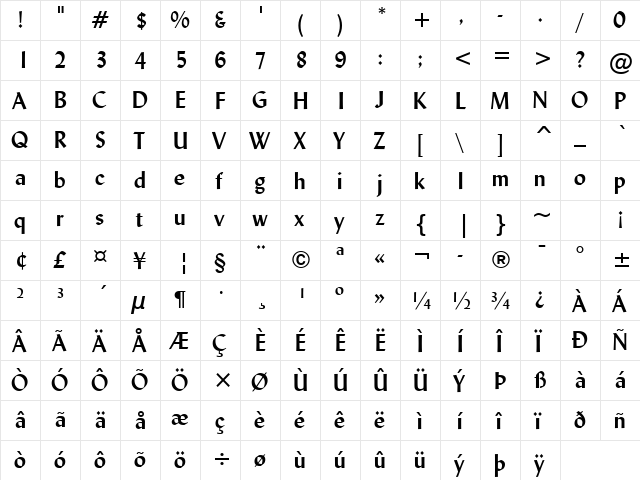
Lydian Bold
Design Context for Lydian Typeface
Lydian offers clean, dependable letterforms without strong stylistic allegiance, making it a practical choice for designers who need flexibility. Its bold stroke weight gives it real presence on the page.